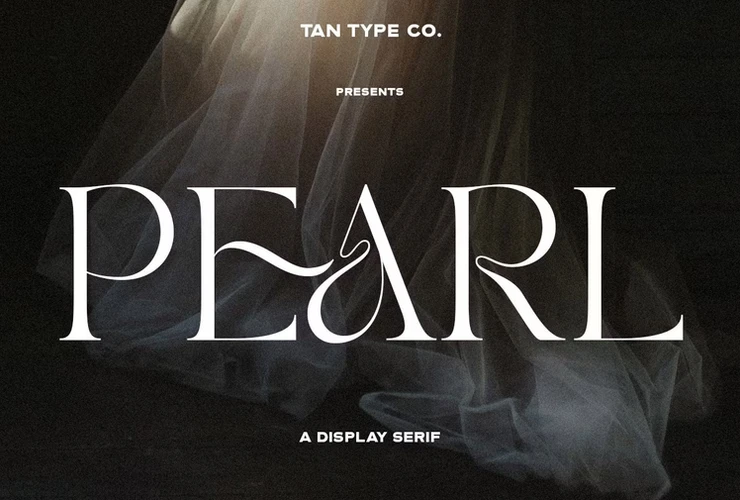
TAN Pearl Font specimen and verified specs
- Glyphs: 366
- Language support: Basic Latin (English), Western European, Central & Eastern European
- OpenType features: standard ligatures, discretionary ligatures, stylistic alternates, kerning, fractions
Design: a light serif with wavy details
TanType describes TAN Pearl as “a playful yet elegant serif” that “teases your eyes with its curves yet still able to maintain its classy composure”. In the specimens rendered from the font files, that playfulness comes from small, deliberate quirks set inside an otherwise calm, light, high-contrast serif.
The quirks are mostly wavy strokes where you would expect straight ones. The crossbar of the e is a soft S-curve, the arm of the F dips and rises, and the + and = signs swell and taper instead of being plain rules. The G spirals inward, the A has a looped left stroke, and the Q finishes in a long, sweeping tail. The figures are the most decorative part of the set: a fine diagonal line runs through the 0, the 6 and 9 curl into their own bowls, and the 2 sits on a wavy base. The ampersand is an open, epsilon-like shape.
The rest stays restrained. Stems are straight, serifs are small and sharp, and the lowercase is upright and evenly spaced, so a line of TAN Pearl reads cleanly at headline sizes. The hairlines are fine, so like most fonts of this type it needs room and a reasonably large size.
- Foundry: TanType Co. Unlike TanType’s other fonts, the Pearl files leave the designer field empty.
Language support and OpenType features
TAN Pearl includes Basic Latin, Western European and Central and Eastern European characters. That is enough for English, French, Spanish, German, Italian, Polish, Czech, Hungarian and most other European languages that use the Latin alphabet.
It has five OpenType features:
- Standard ligatures: combined shapes for letter pairs that would collide, switched on automatically.
- Discretionary ligatures: decorative combinations you turn on by hand, useful for a name or monogram.
- Stylistic alternates: second versions of certain letters. The listing notes that you need software that supports OpenType features to reach them.
- Kerning: automatic spacing adjustments for specific pairs.
- Fractions: builds proper fractions from text like 1/2.
Best uses and font pairings
Who made TAN Pearl?
What should I pair it with?
A light sans such as Raleway or Jost for supporting text, or Lora for longer reading passages.